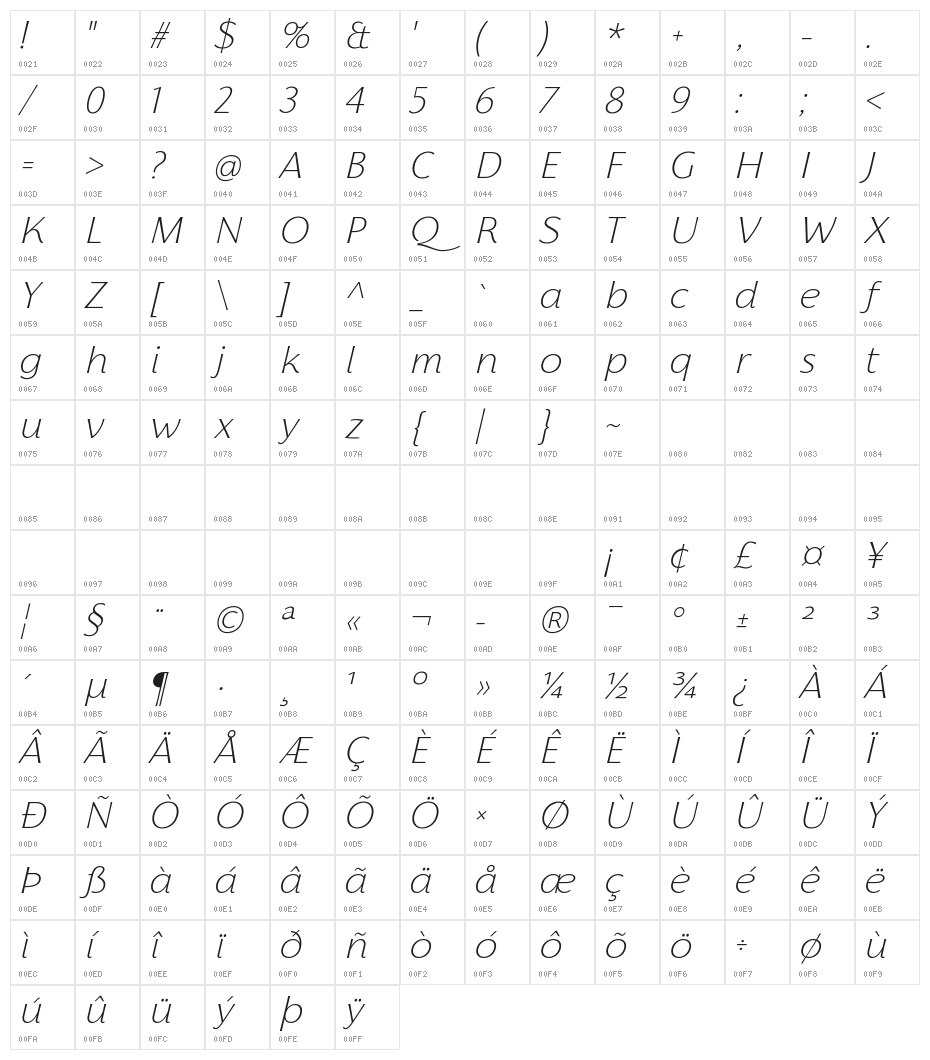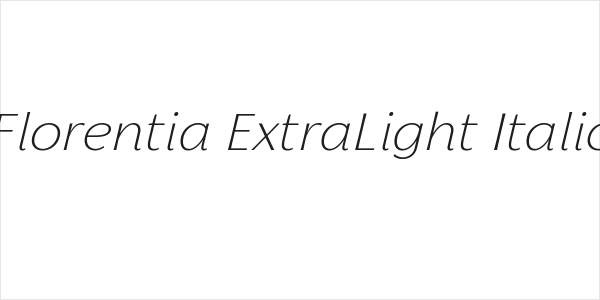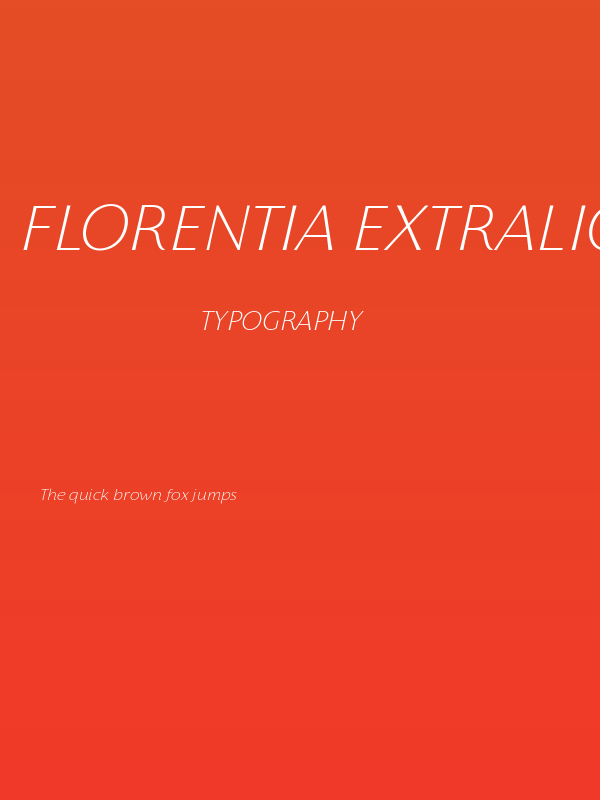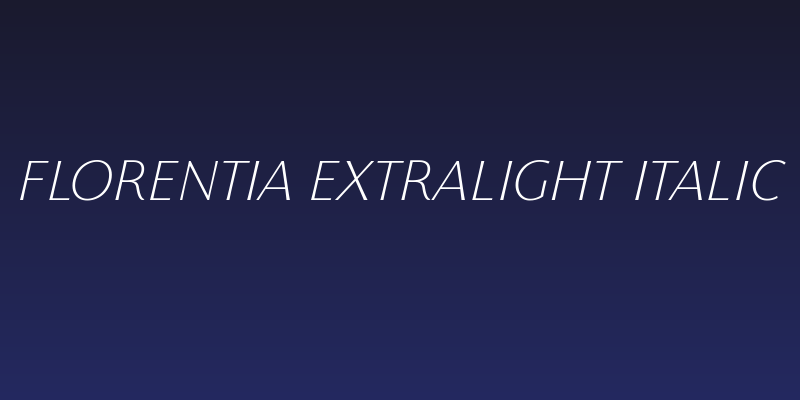
Florentia ExtraLight Italic Font
Florentia ExtraLight Italic Description
This font exudes elegance and sophistication with its extra-light weight and italic style. The characters are gracefully elongated, giving a sense of fluidity and motion. The strokes are thin and delicate, contributing to a refined and airy appearance. The font maintains a consistent slant, enhancing its italic nature, while the curves are smooth and gentle. The overall design is modern yet timeless, making it versatile for various applications. The numerals and special characters are crafted with the same attention to detail, ensuring uniformity across all glyphs.
| Proposed Projects | Ideal for high-end branding, fashion magazines, elegant invitations, and sophisticated website headers. |